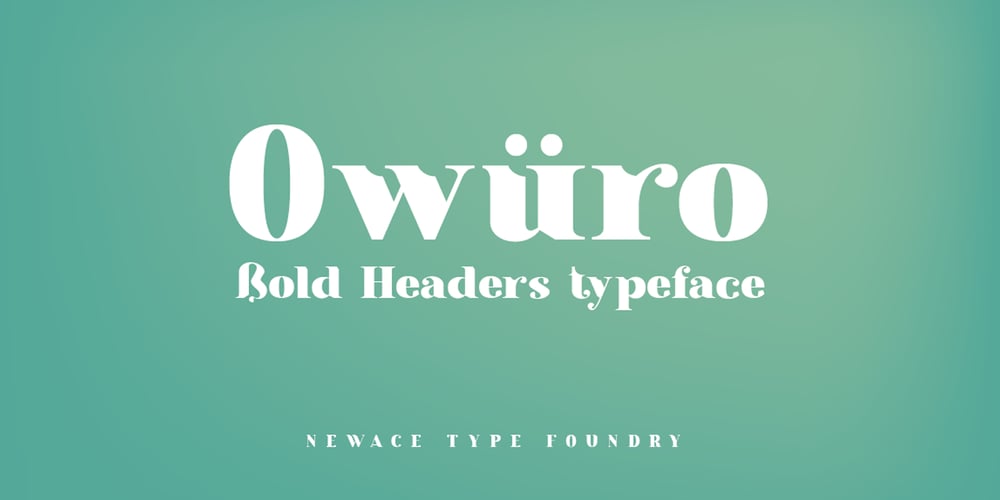
Owuro Font Family was designed by Alexey Makarov and published by Alexey Makarov. Owuro contains 1 styles and family package options. Presenting a professional designer font. Specially designed for the header, it will complement your collection. It contains standard ligatures. More than 1,500 kerning pairs. Standard Latin alphabet and European diacritics.